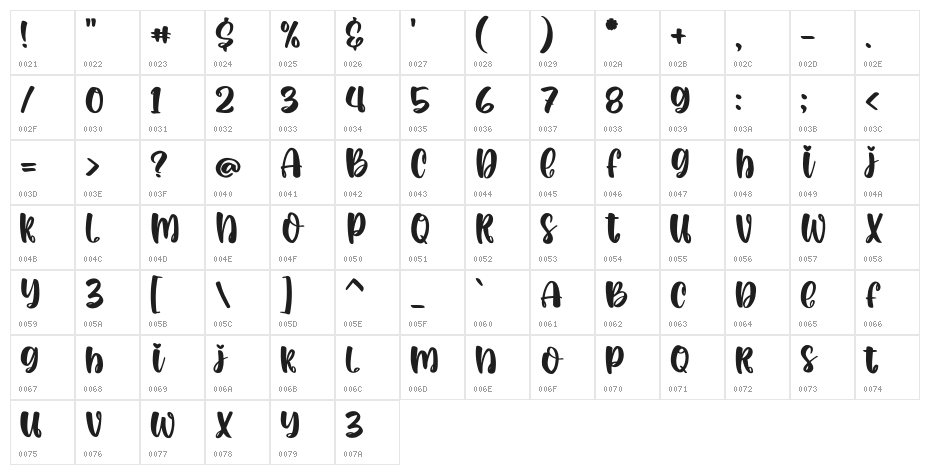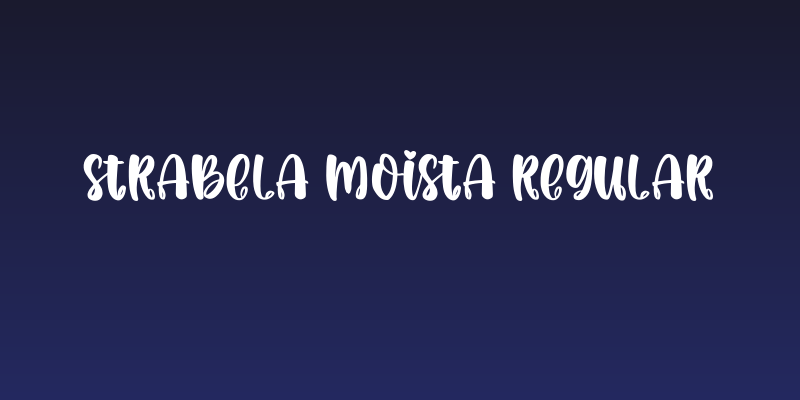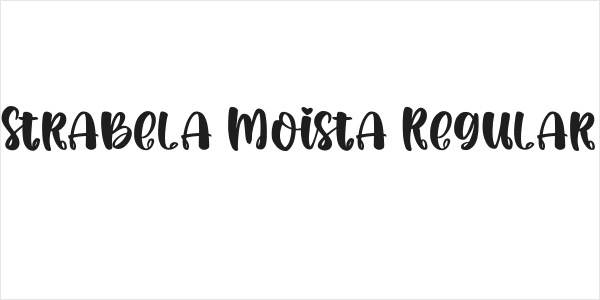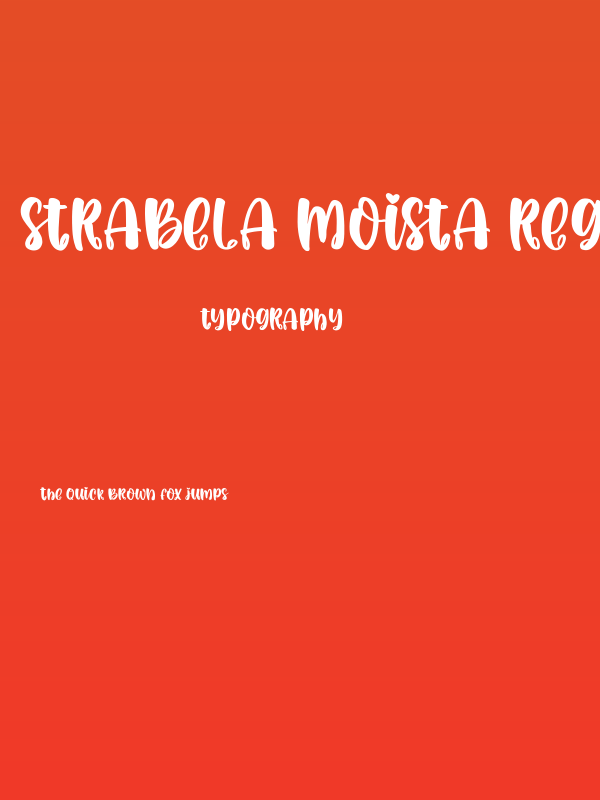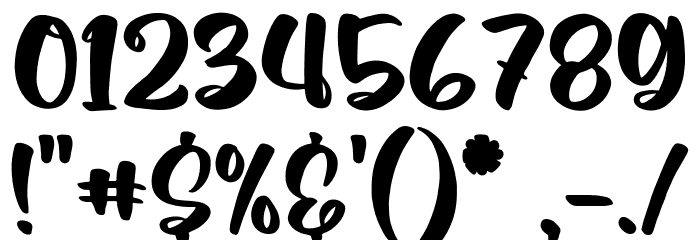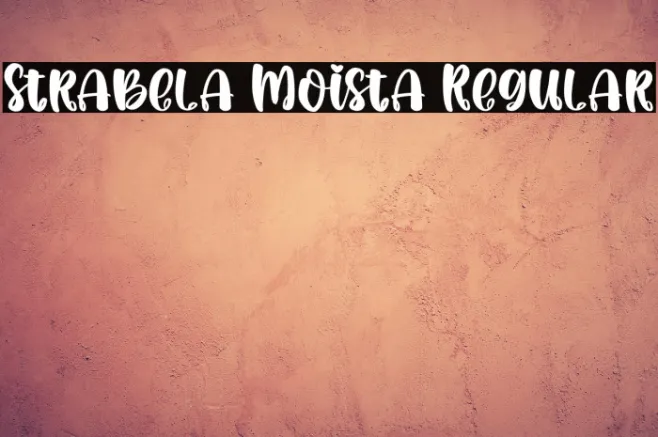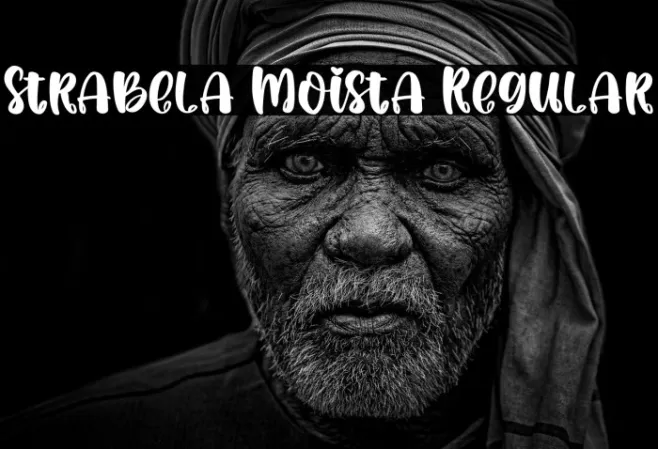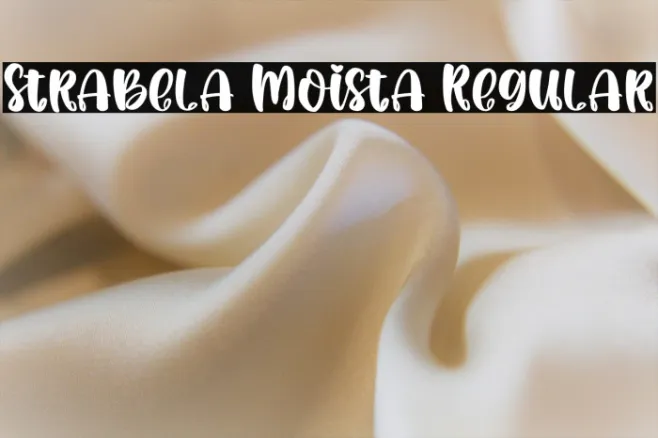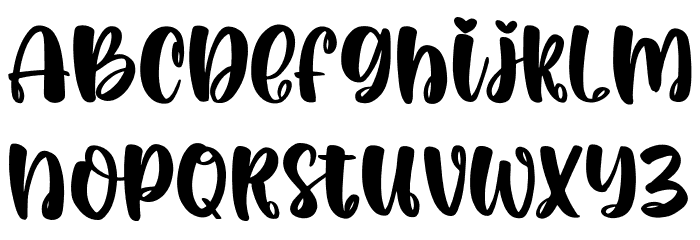
Strabela Moista Regular Font
Strabela Moista Regular Description
This font features a bold and playful script style with a handwritten appearance. The characters are rounded and have a flowing, cursive quality, giving them a whimsical and friendly look. The strokes are thick and consistent, providing a strong visual impact. The uppercase and lowercase letters maintain a cohesive style, with some characters featuring unique swashes and flourishes that add to the decorative nature of the font. The numbers and special characters are equally bold and maintain the same playful aesthetic, making them suitable for a variety of creative applications.